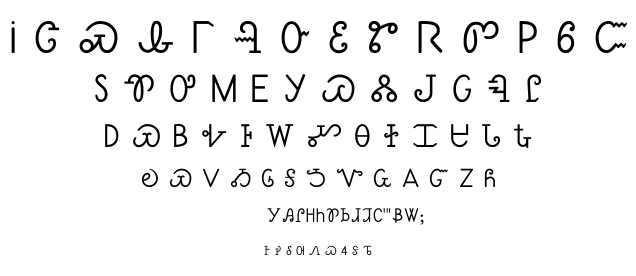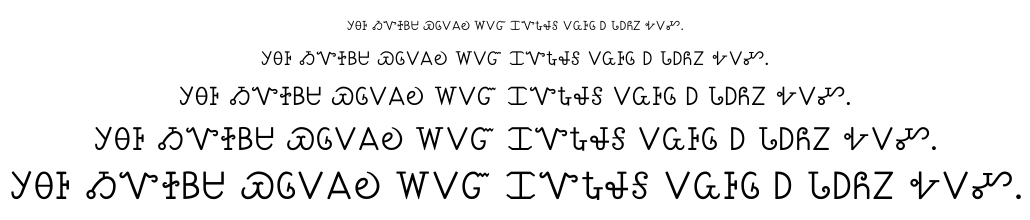
An American Indian Cherokee Aplhabet font containing the 85 symbols representing the sounds in the spoken language. Open and print Sequoyah.DOC for the key map.